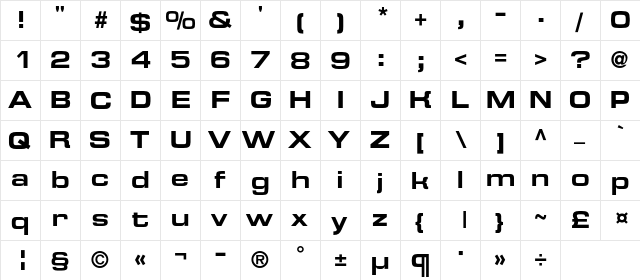
EurofontExtendedC Bold
Design Context for EurofontExtendedC Typeface
EurofontExtendedC is a composed and adaptable typeface that performs quietly and consistently across a wide range of design contexts. Its bold stroke weight gives it real presence on the page.